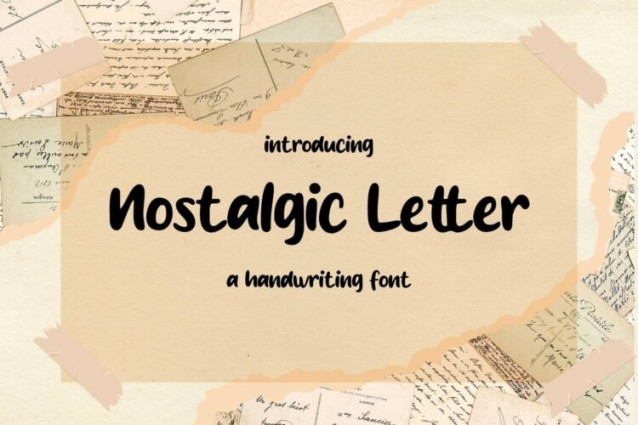
Nostalgic Letter Font
Nostalgic Letter Font is a simple and friendly handwritten font. Its natural and unique style makes it incredibly fitting to a large pool of designs. The only limit is your imagination!